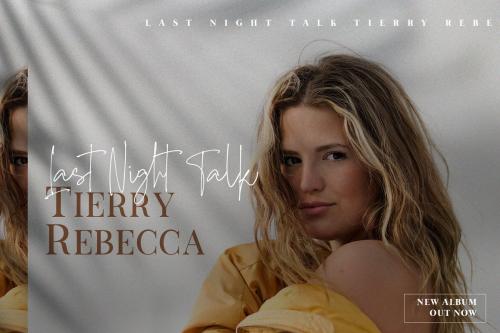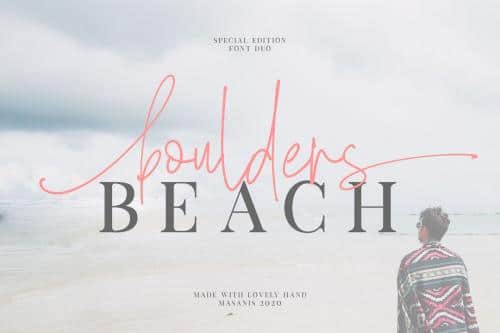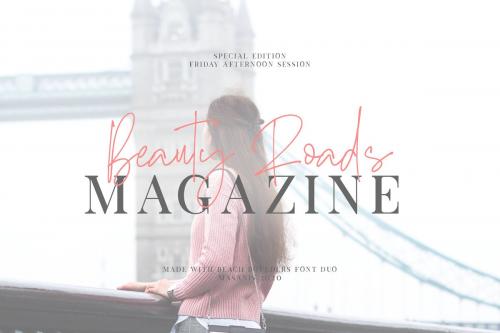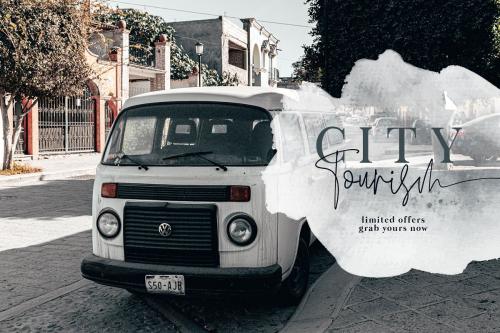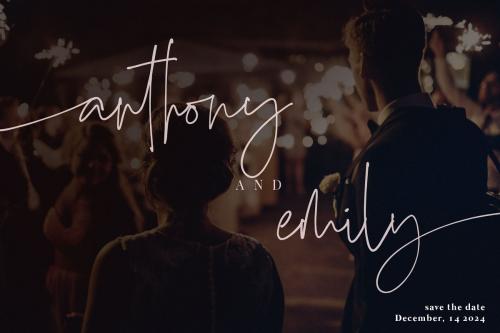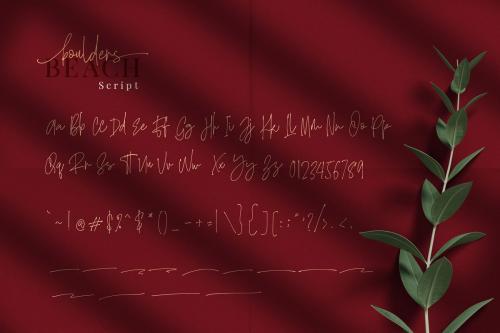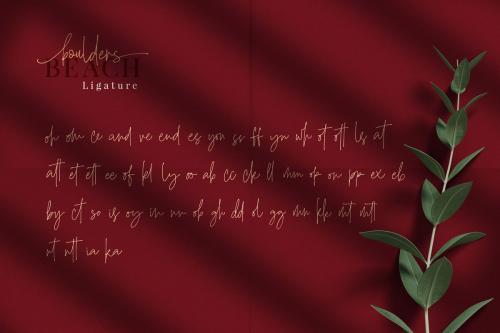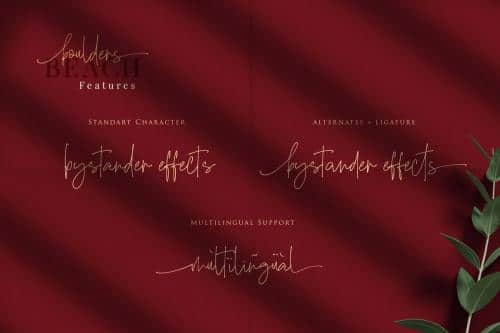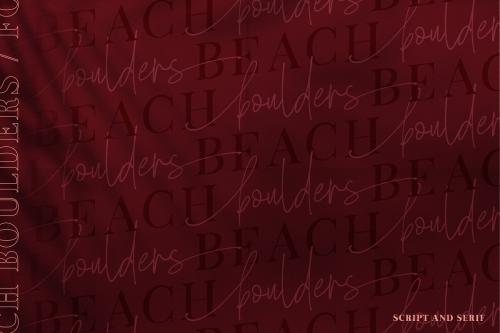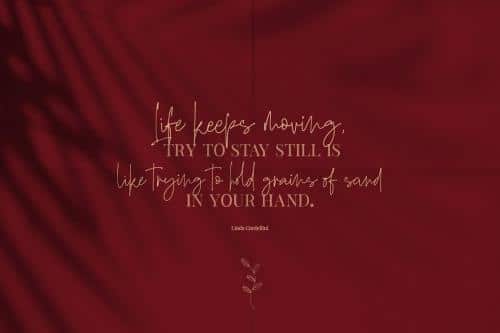
Hello meet our new font duo with Modern Elegant Style. This font is perfect for logo, invitation, stationery, wedding designs, social media posts, advertisements, product packaging, product designs, label, photography, watermark, special events or anything.